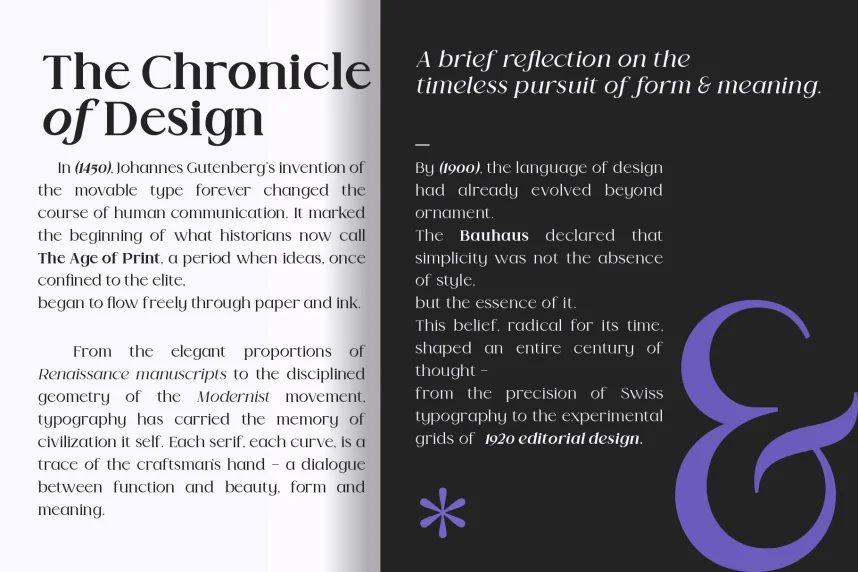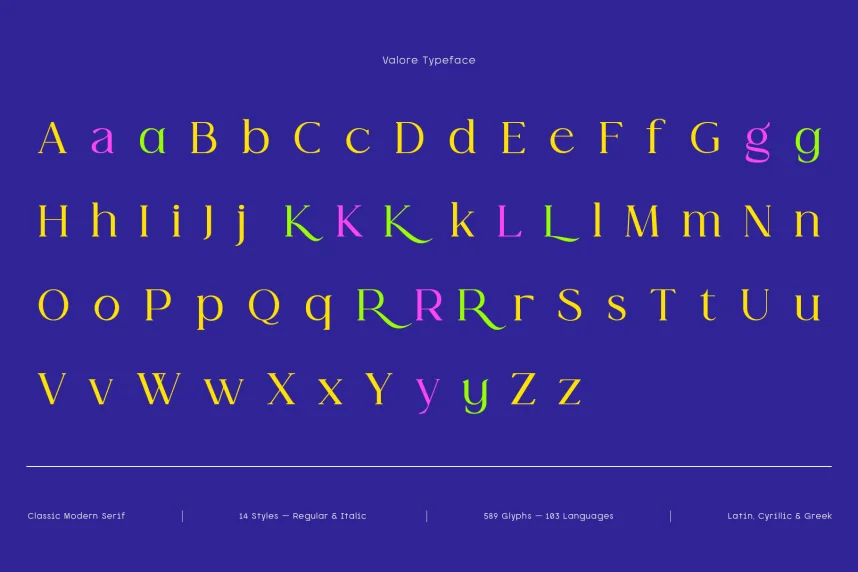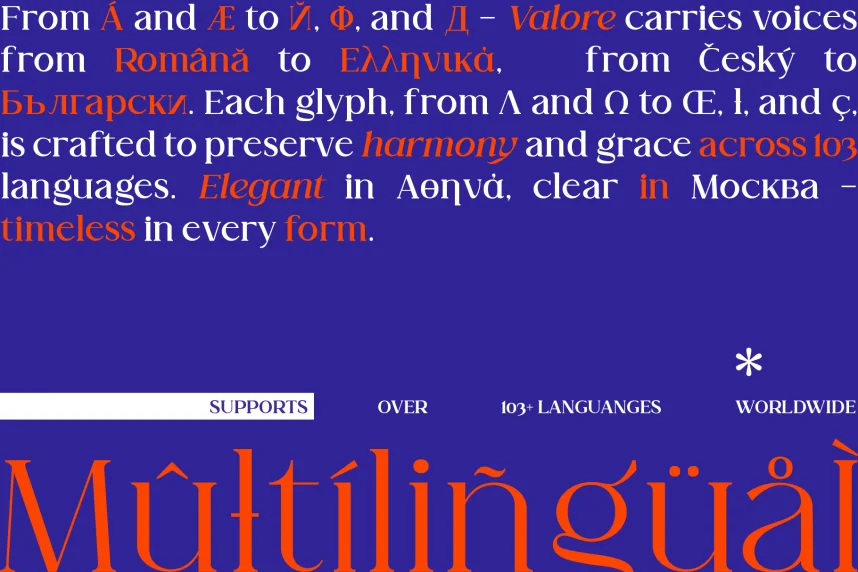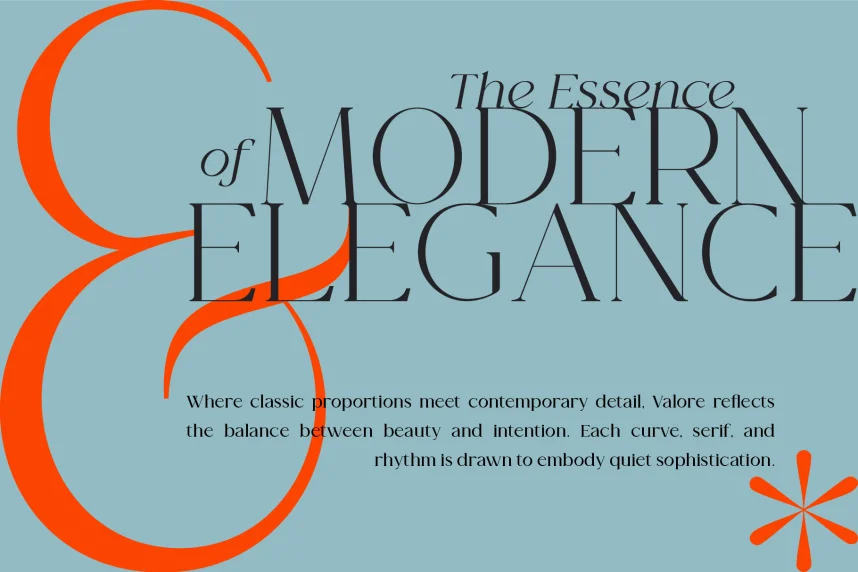
Valore Pro Font is a serif typeface designed to solve a common branding problem: maintaining readability while projecting a refined, professional tone. Designers often choose serif fonts like Valore Pro for logos, editorial layouts, and print materials where trust, structure, and clarity matter.
Valore Pro is a modern serif with balanced proportions and moderate stroke contrast. The letterforms feature clean serifs, consistent spacing, and controlled curves, which support comfortable reading at both large and medium sizes. Its construction leans toward contemporary editorial design rather than decorative styling, making it suitable for long-form text and structured layouts. The font maintains a stable baseline and even x-height, which helps with alignment in UI design and print grids.
This typeface works well for brand identities, corporate stationery, magazines, book covers, and website headings. In logo design, Valore Pro communicates authority without appearing rigid. For web design, it is best used in headings, hero sections, or short paragraphs rather than dense body copy. Pairing Valore Pro with a neutral sans-serif font improves hierarchy and keeps layouts balanced across digital and print formats.